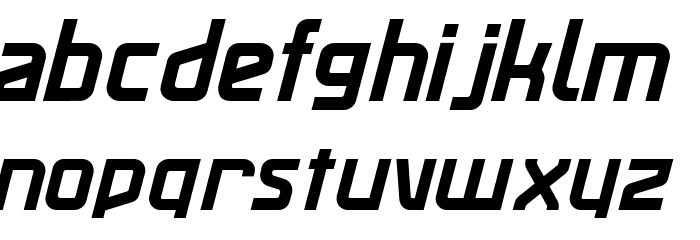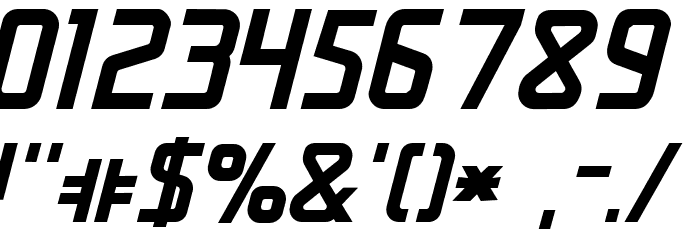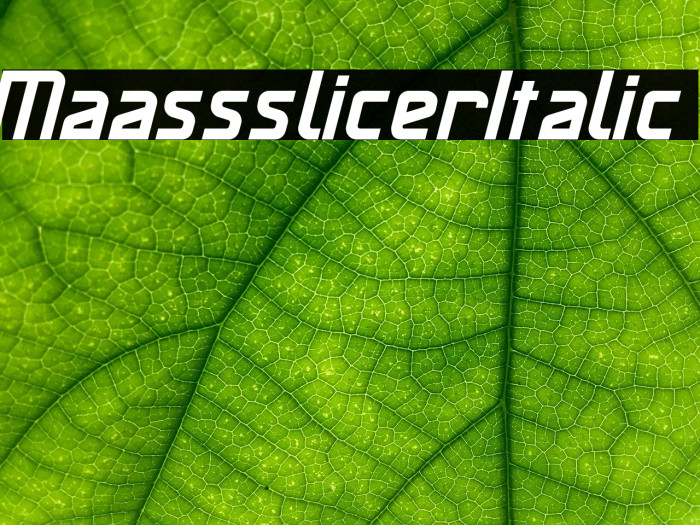
MaassslicerItalic Font
This font features a modern and dynamic design with a distinct italic slant, giving it a sense of motion and energy. The characters are bold and slightly condensed, with a consistent stroke width that maintains readability. The uppercase letters are angular and geometric, while the lowercase letters complement them with a more rounded and approachable style. The numerals are clear and well-defined, making them suitable for various applications. Special characters are included, offering versatility for different design needs. Overall, this font exudes a contemporary and sporty aesthetic, making it ideal for projects that require a bold and energetic look.
A modern, italic font with bold, geometric characters and a sporty aesthetic.
- Proposed Projects: Ideal for sports branding, dynamic posters, modern web design, and energetic advertising campaigns.